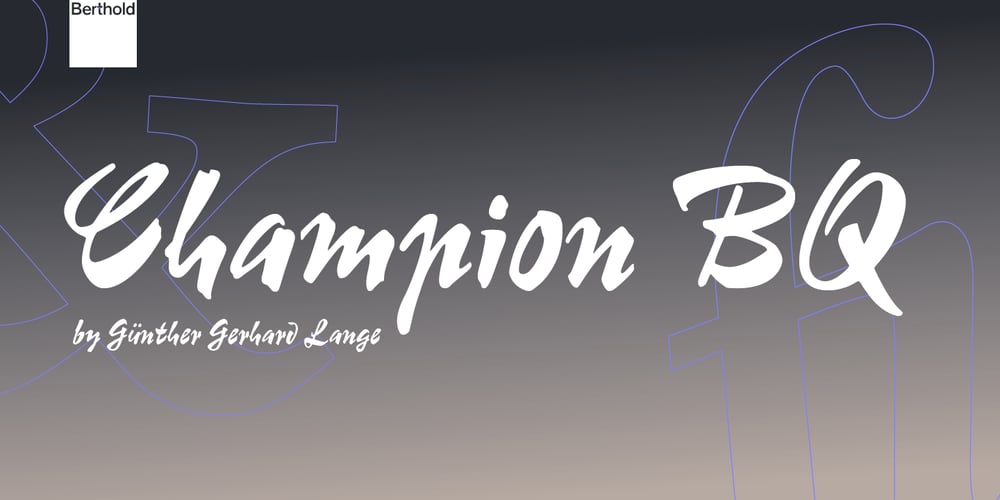
Champion Font Family was designed by Günter Gerhard Lange and published by Berthold. Champion contains 1 styles and family package options. Günter Gerhard Lange designed this “fun” typeface for Berthold in 1957. Although a departure from his more serious designs, Champion shows Mr. Lange’s diversity.